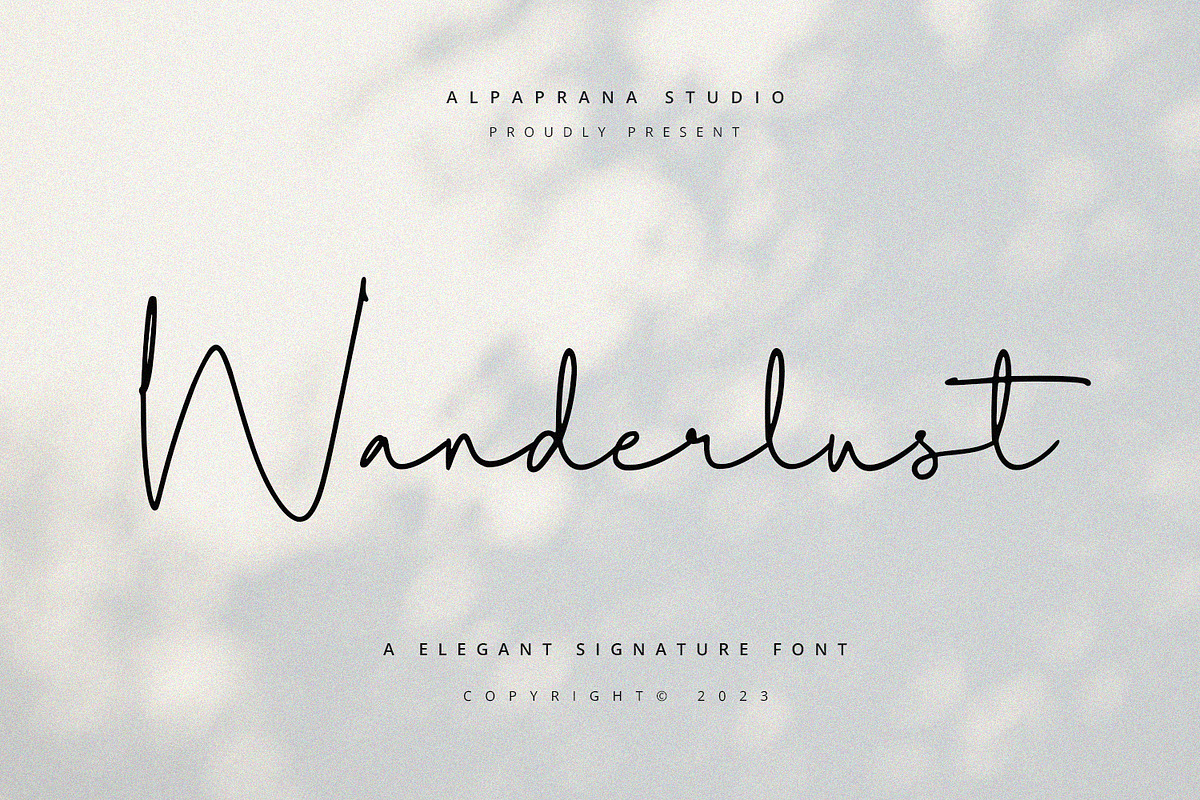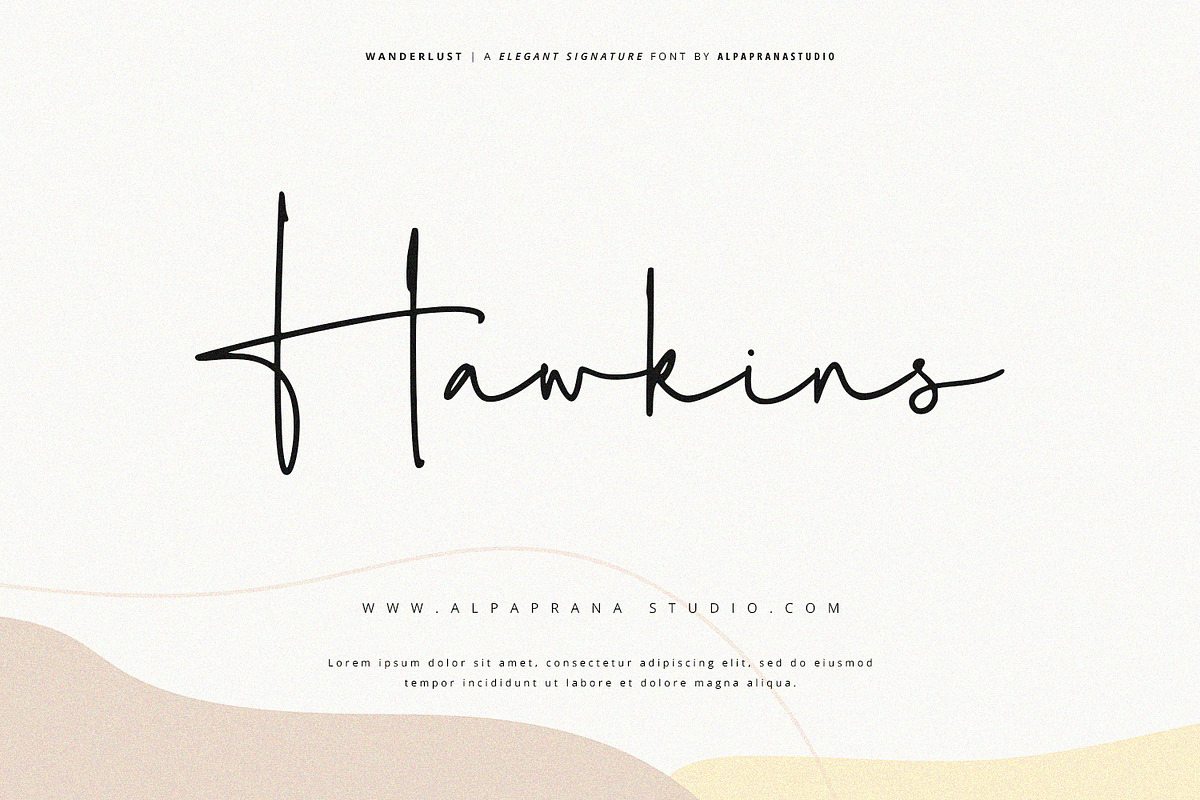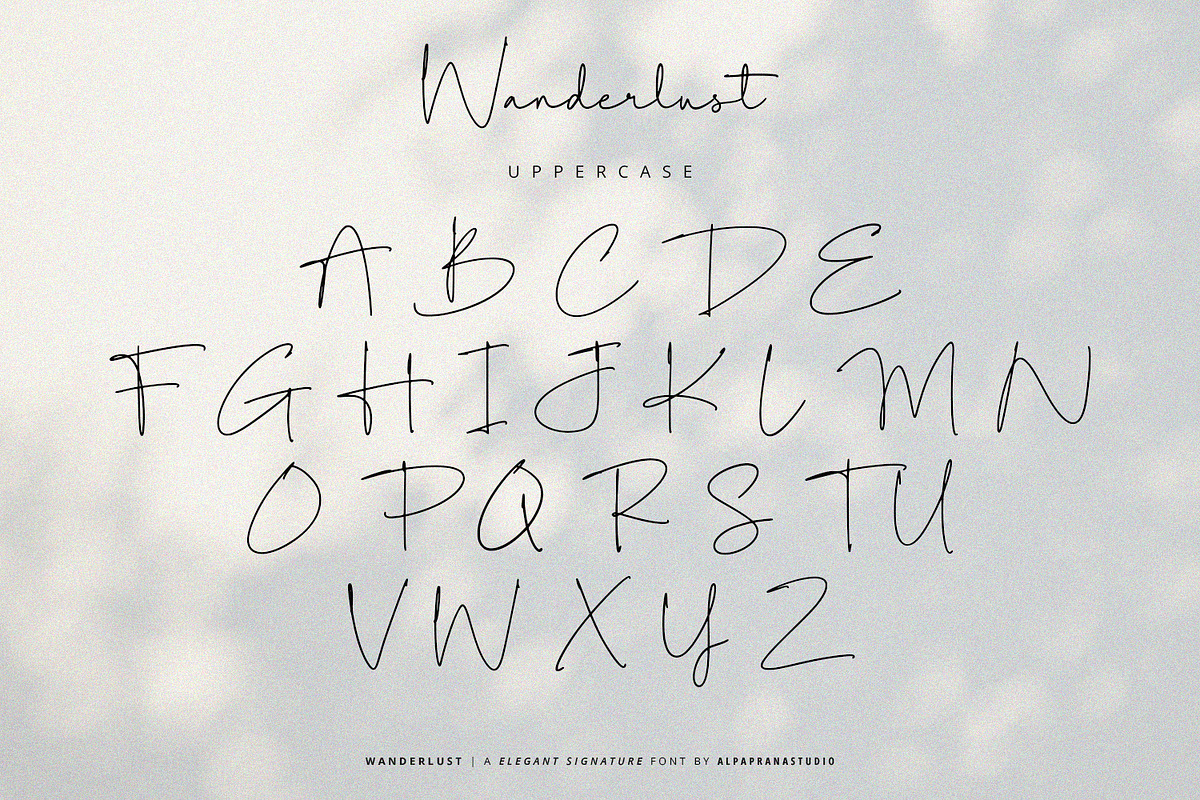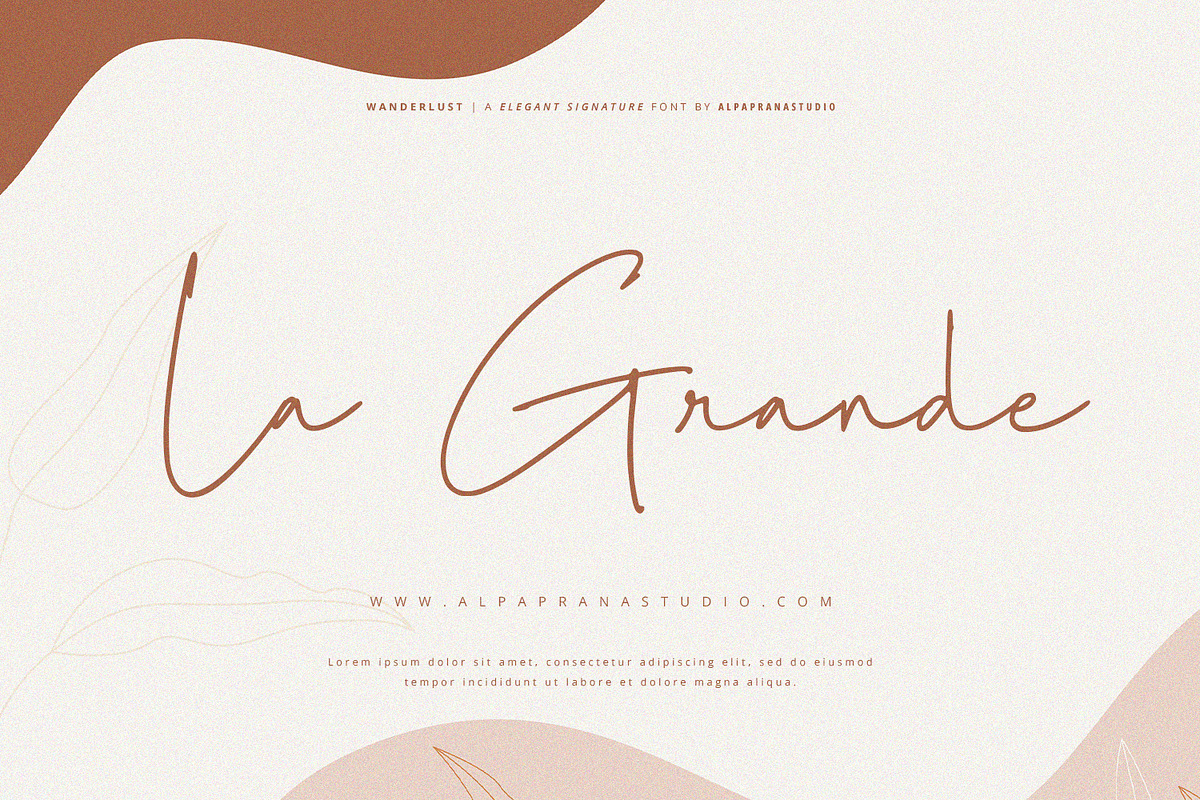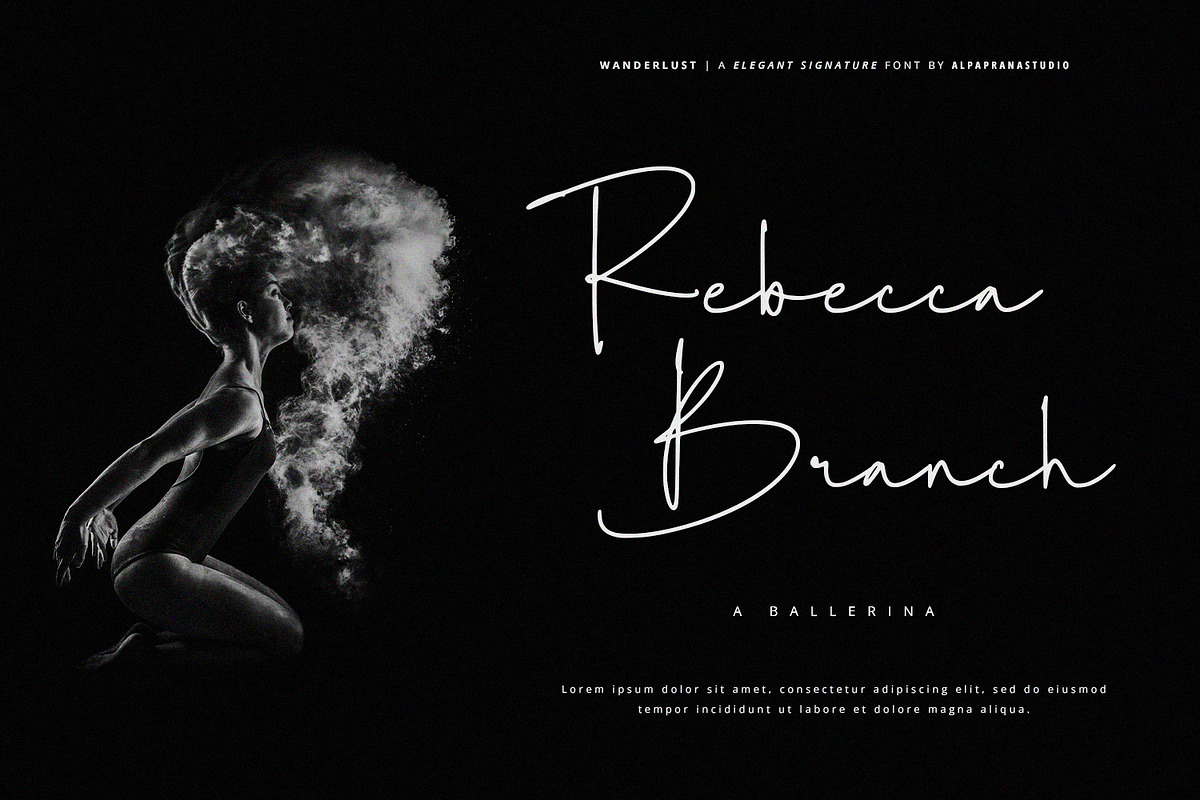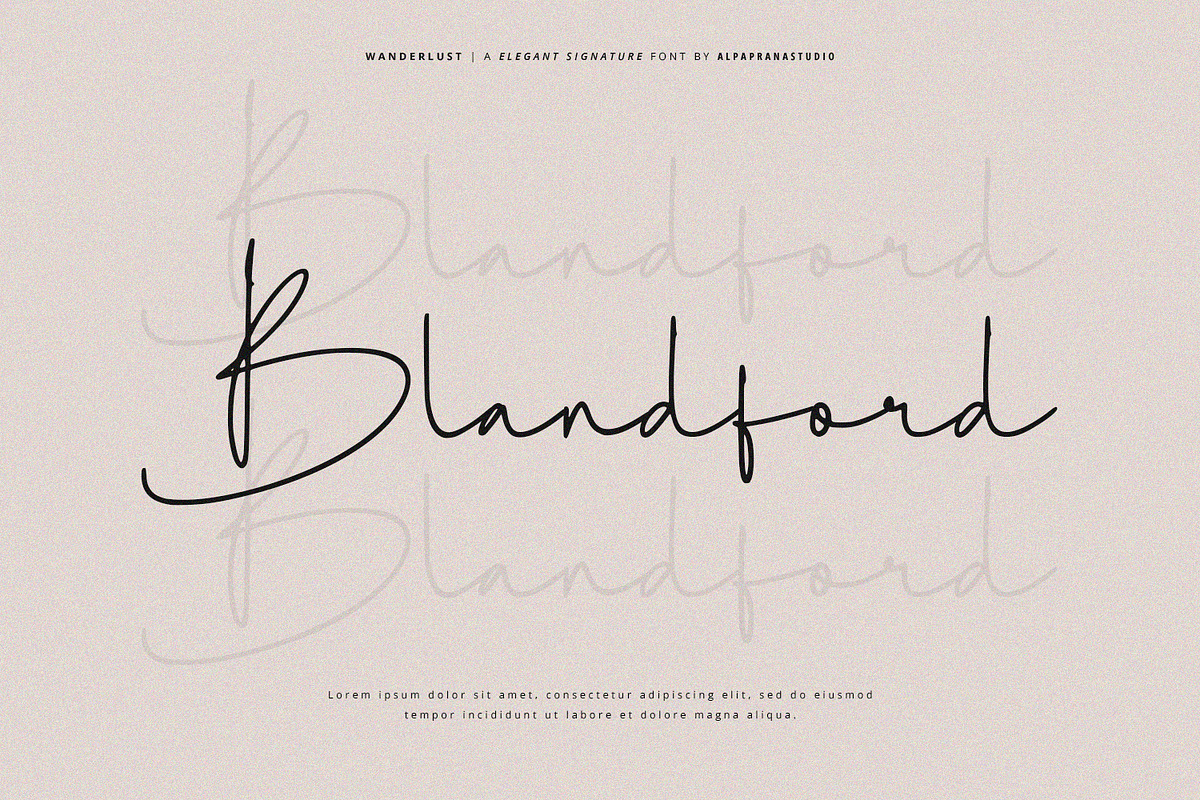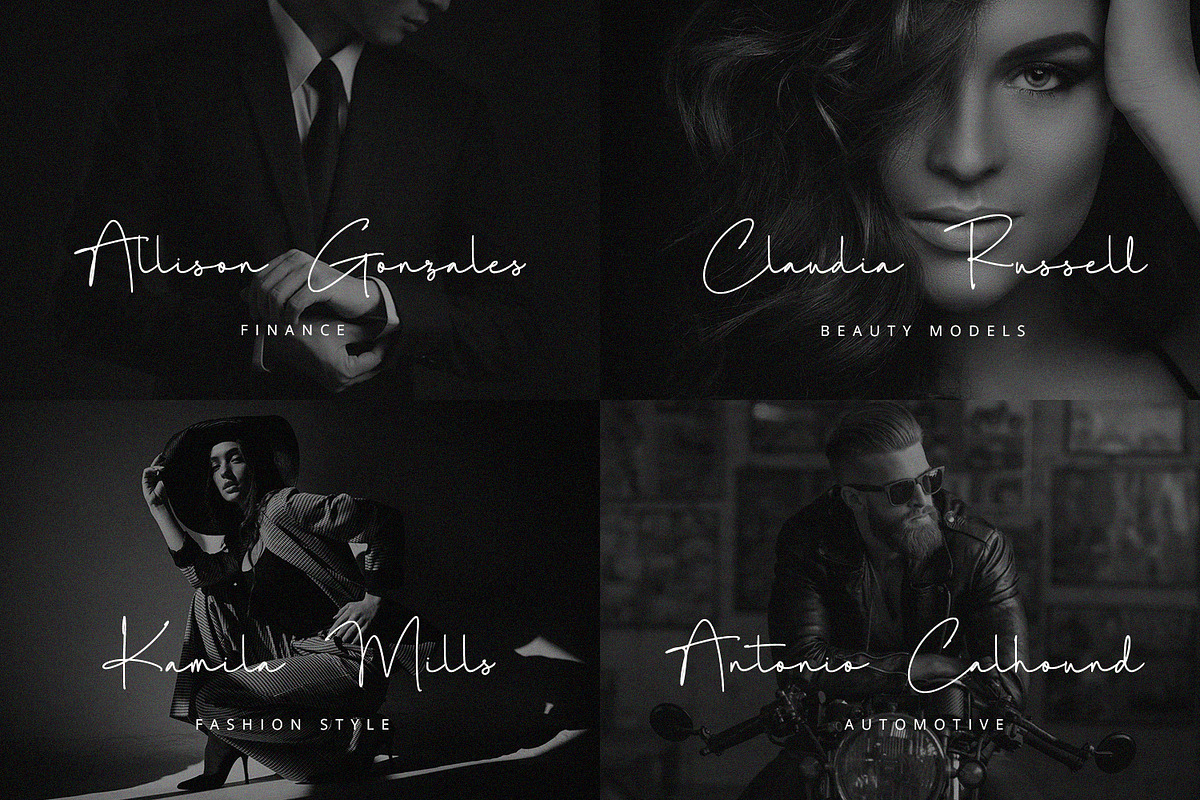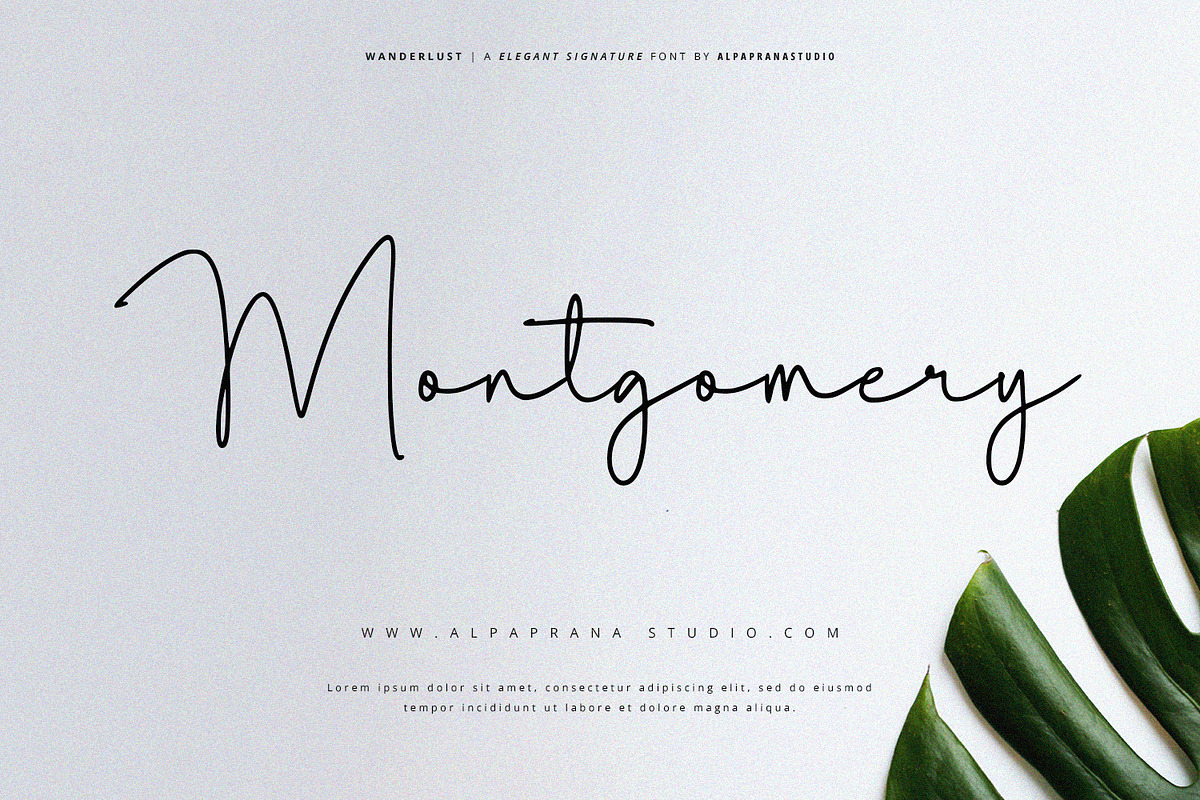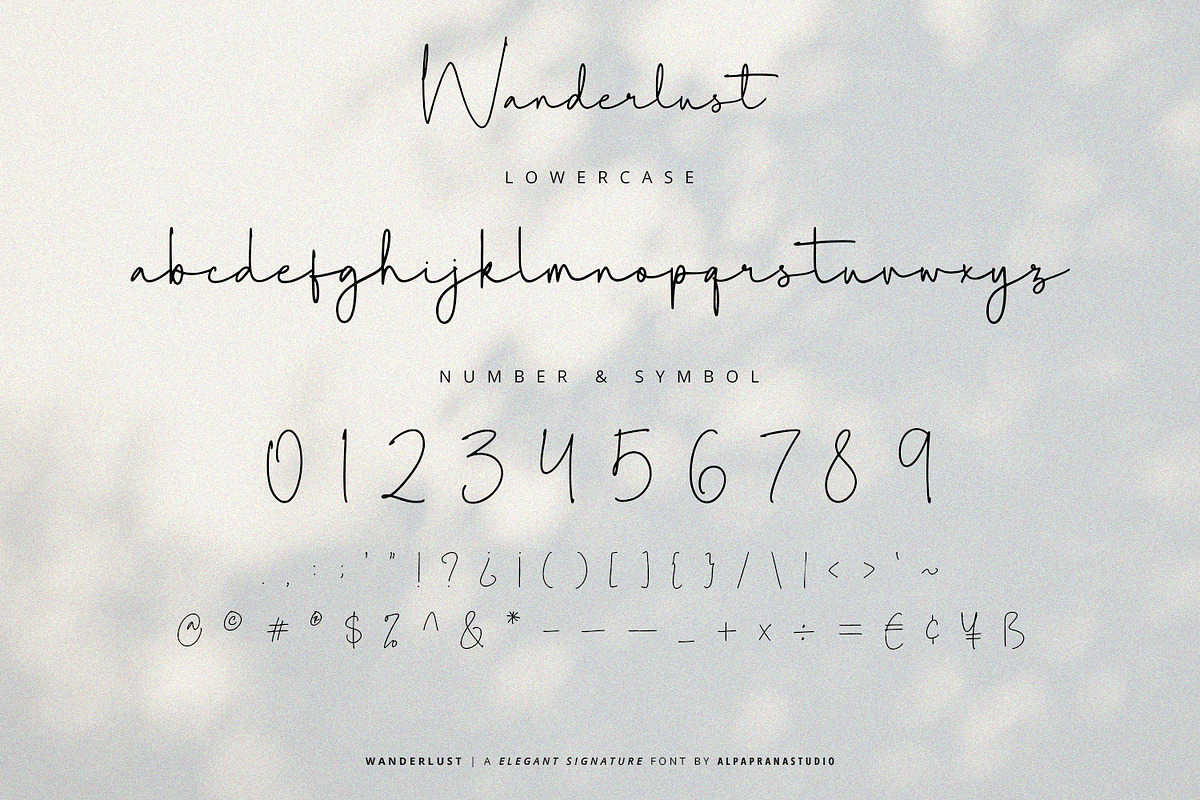
Wanderlust - Signature Font
Wanderlust is a signature font with natural and modern feels. It will be perfectly used for Branding, Logo Design, Lettering, Logotype, Clothing, Poster, magazine, packaging, posters, shopping bags, t-shirts, book covers, photography, special events and other design project.